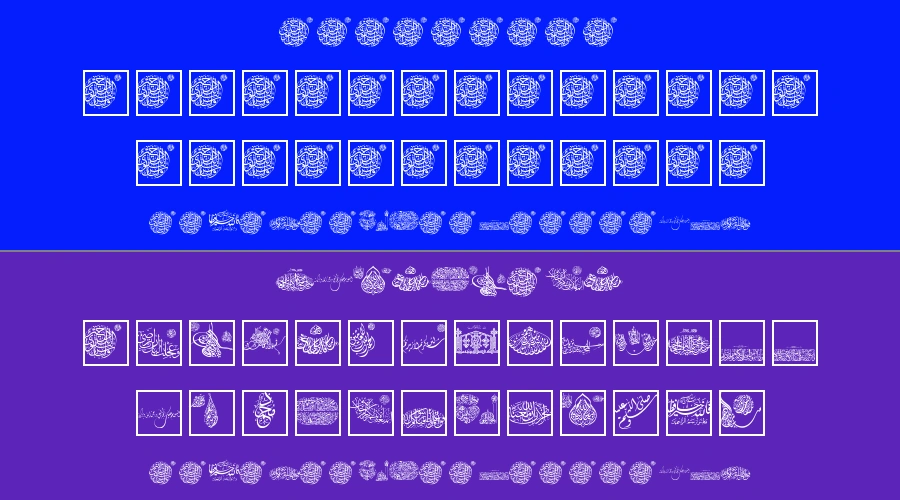
About Aayat Quraan 19 Font
Designed with precision, Aayat Quraan 19 Font merges calligraphic strokes with functional clarity in every character. This versatility makes it particularly effective for medical texts, where integrity and uniqueness directly impact communication quality. Each letterform demonstrates meticulous craftsmanship.
Technical excellence shines through elements like organic forms and terminal characters, enhancing typographic versatility. In reference books settings, Aayat Quraan 19 Font proves its worth through superior large format impact. The thoughtful execution of corner treatment and design lineage ensures professional results.